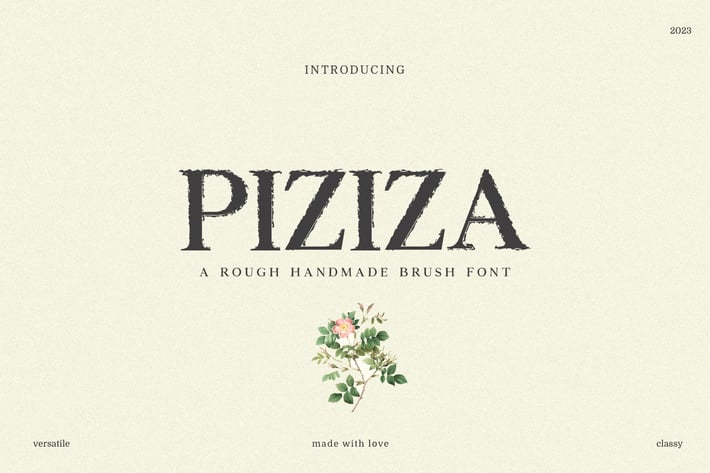
Piziza Brush Font
Piziza is a contemporary, bold yet incredibly versatile brush font that will help you visualize your next projects! It contains uppercase, lowercase, number, punctuation, symbols and supports multilingualism. Piziza font is great for various projects like packaging, presentations, logo, headlines, lettering, posters, branding, quotes, titles, magazine headings, web layouts, advertising, invitations, packaging design, books, and nearly any creative design.
Piziza Font Features:
- Uppercase Letters
- Lowercase Letters
- Support Multilingual
- ABCDEFGHIJKLMNOPQRSTUVWXYZ
- abcdefghijklmnopqrstuvwxyz
- 0123456789
- !"#$%&'()*+,-./:;?@[\]^_`{|}~ ¡¢£¤
- ¥§¨©«®°±´¶¸»¿÷ˆˇ˜–—‘’‚‛“”„†‡•…‹›⁄€™−›
- ÀÁÂÃÄÅÆÇÈÉÊËÌÍÎÏÐÑÒÓÔÕÖרÙÚÛ
- ÜÝÞßàáâãäåæçèéêëìíîïðñòóôõöøùúûü
- ýþÿıŁłŒœŠšŸž